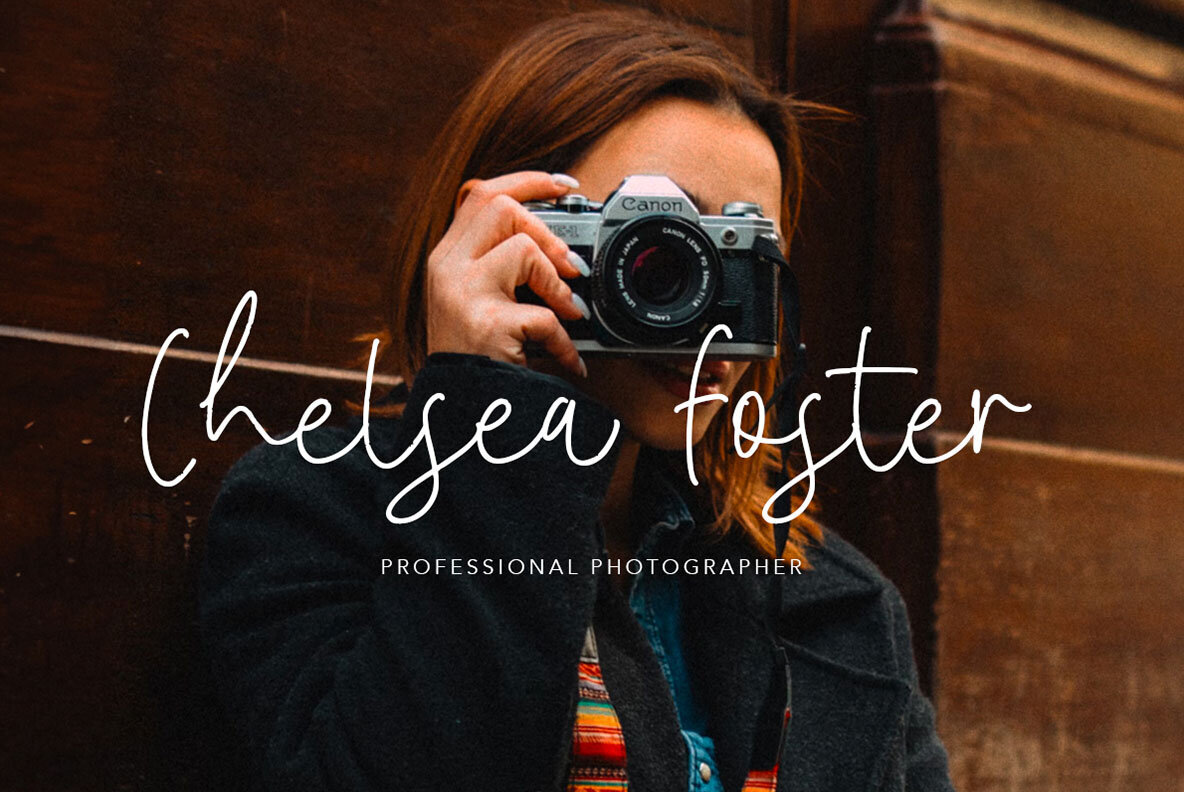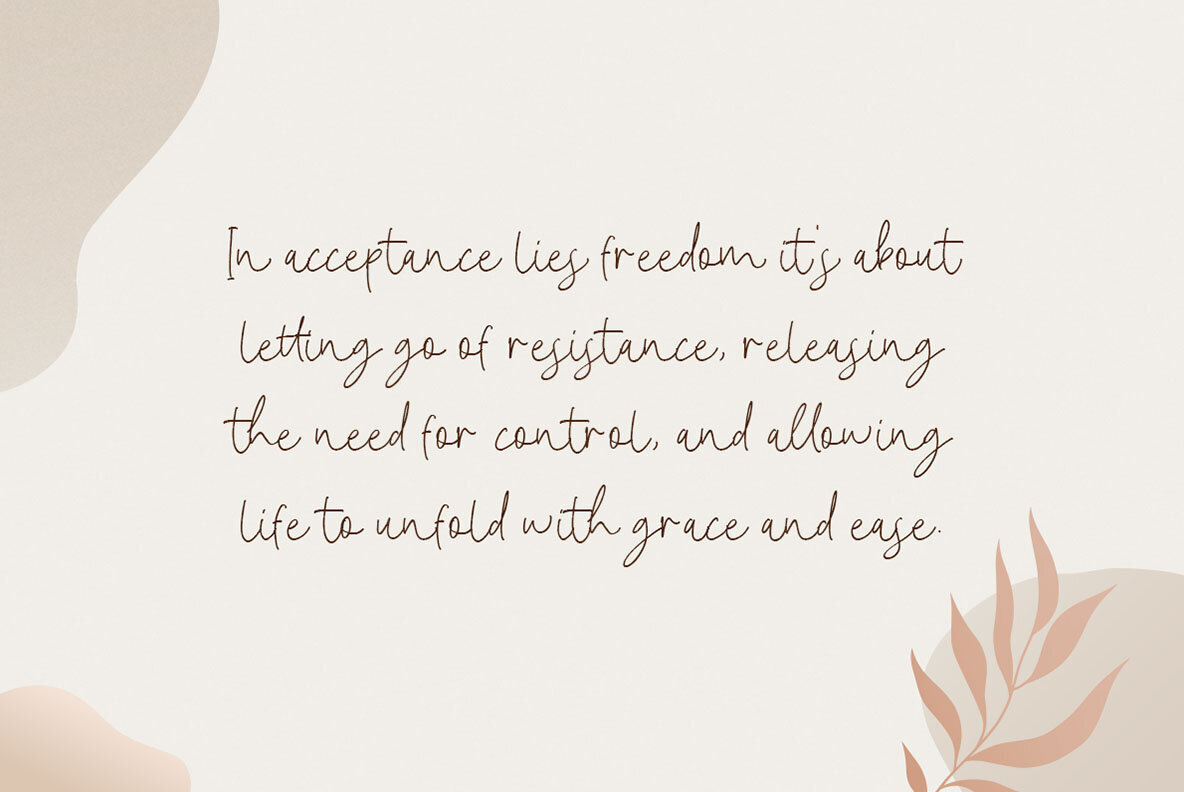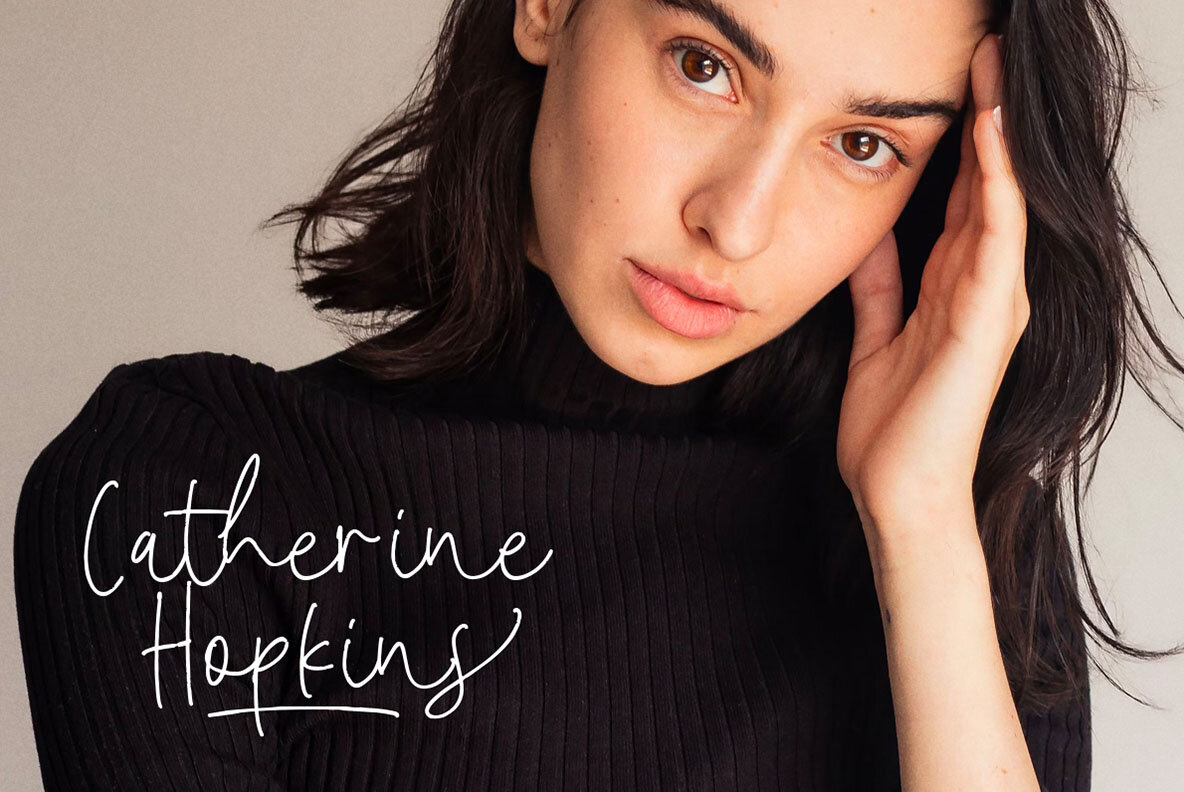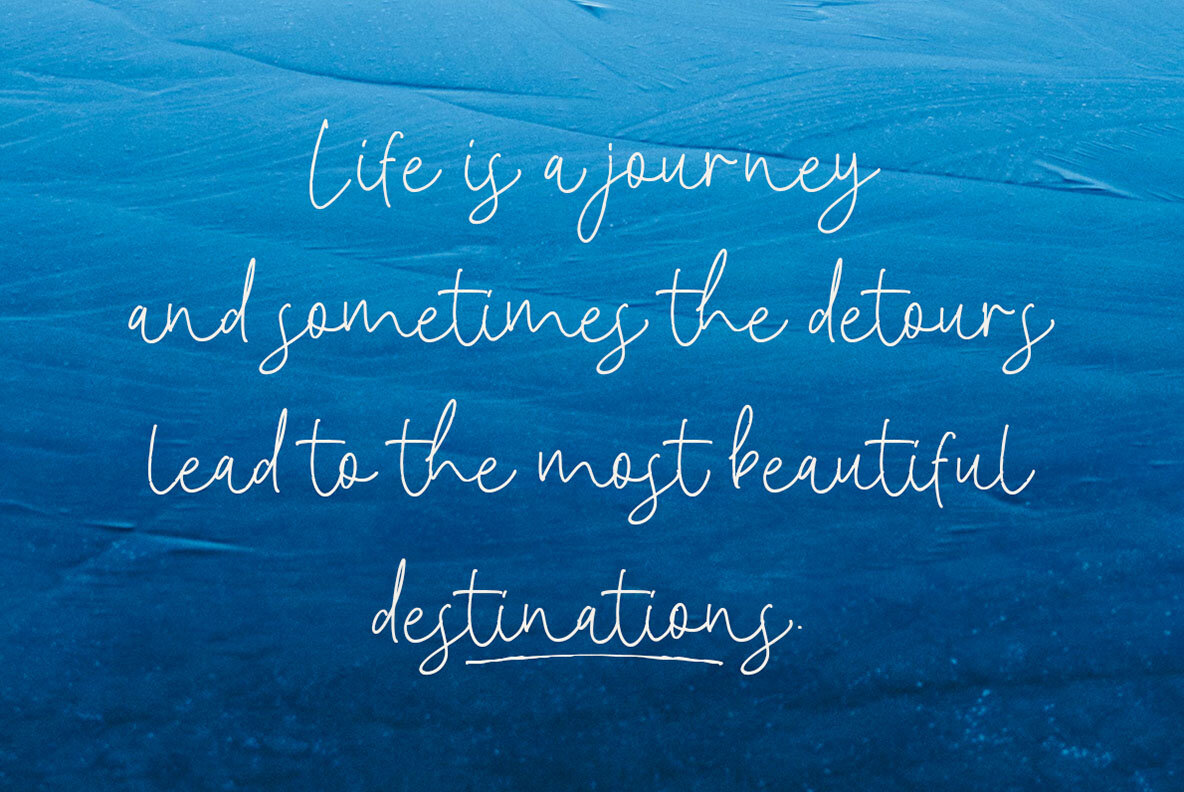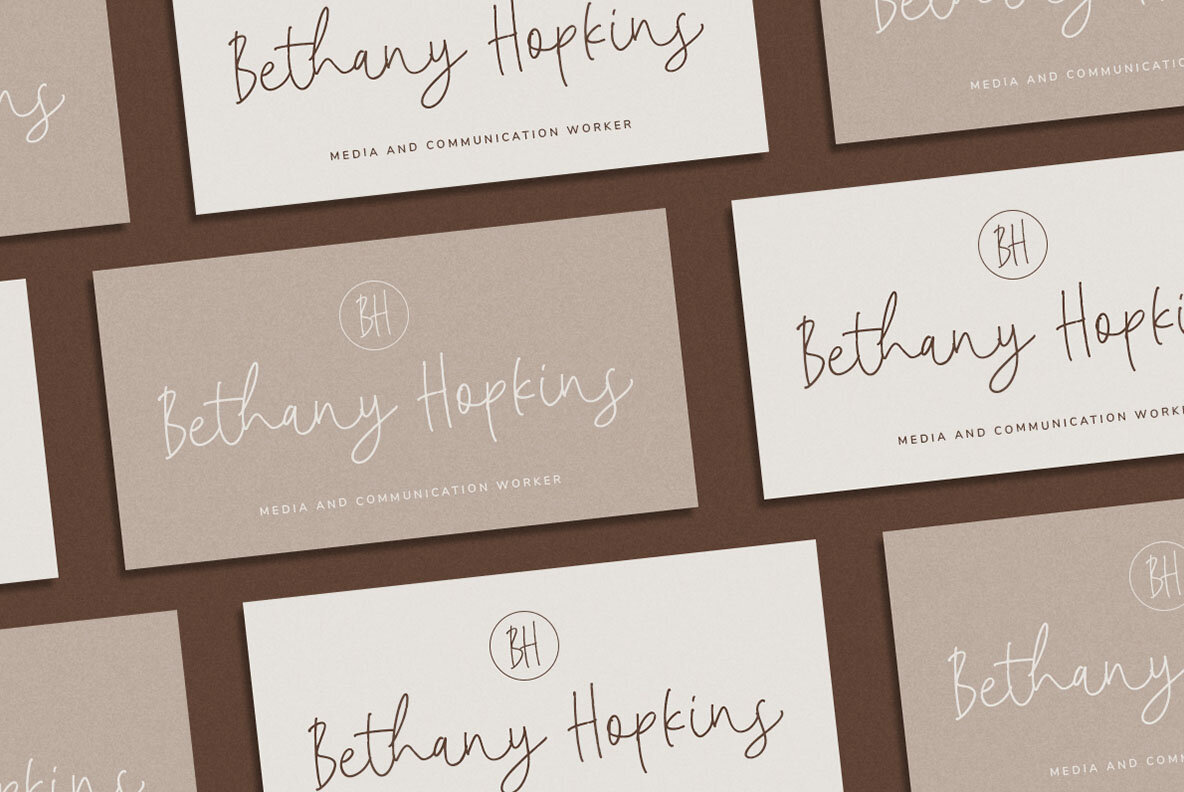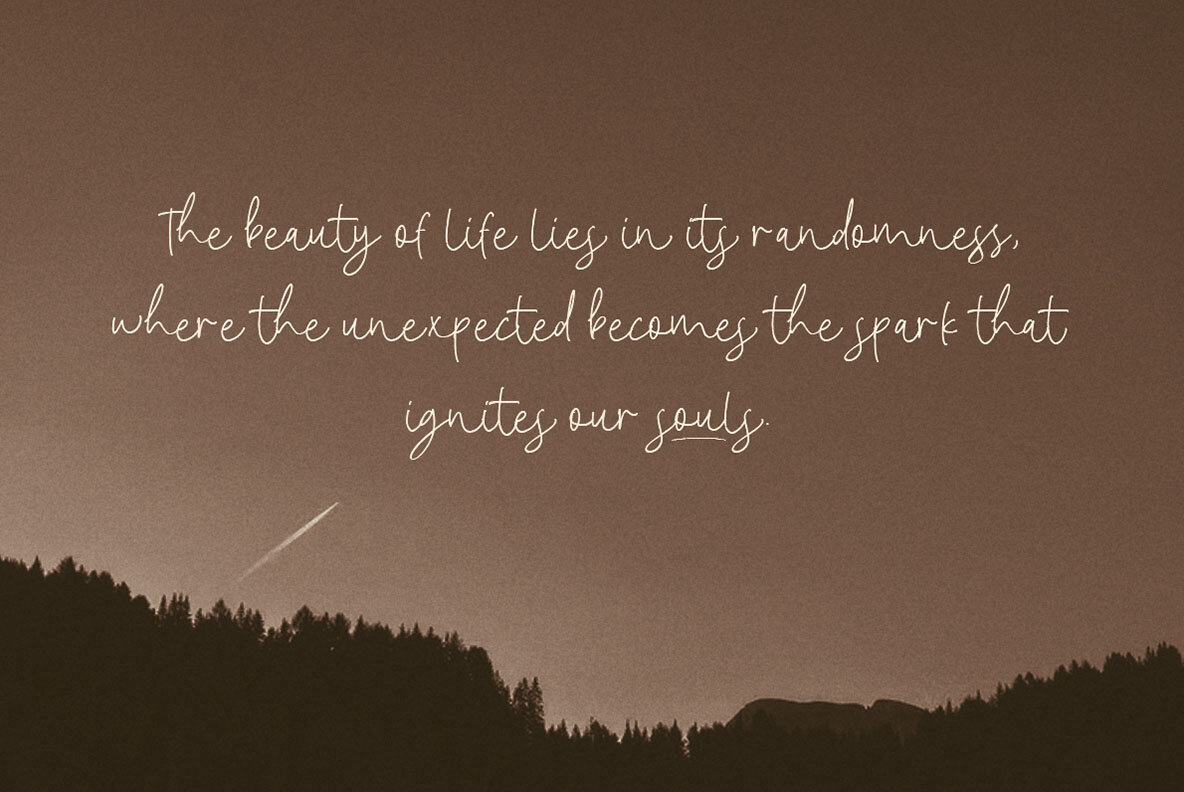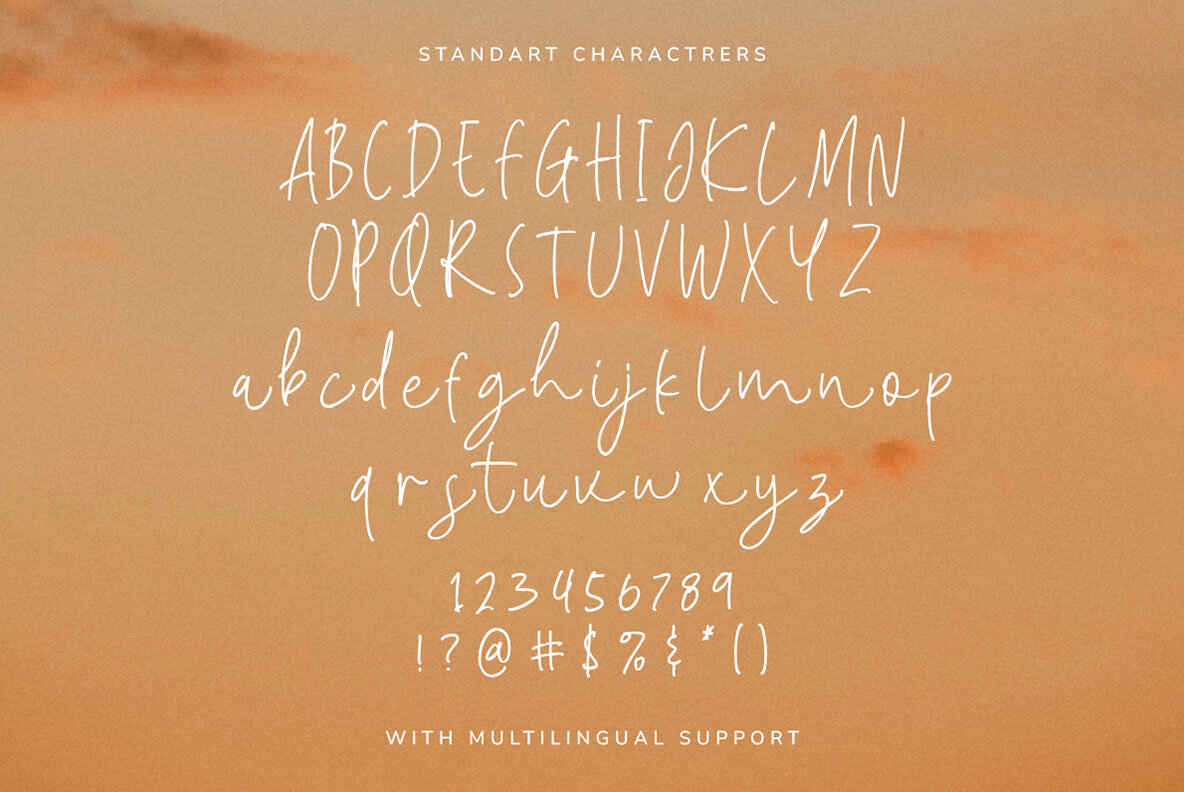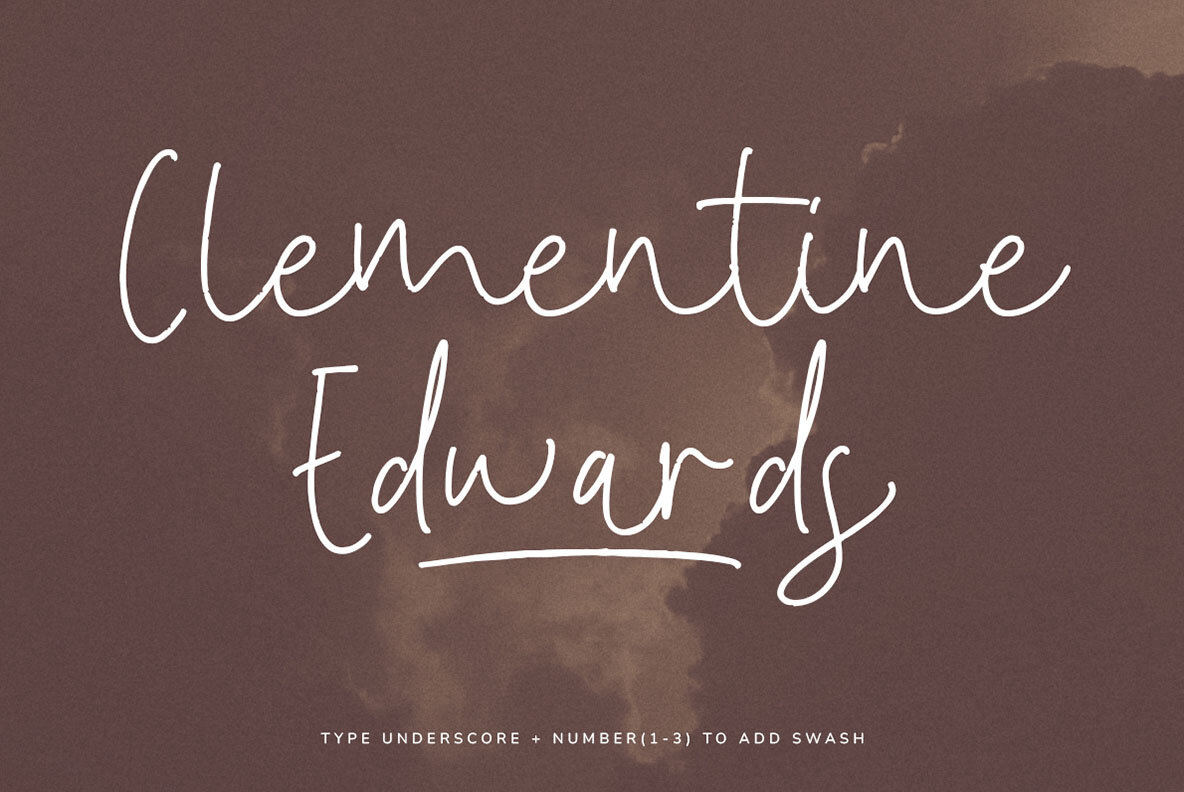
Blind Ambition Font
Blind Ambition Regular
Blind Ambition offers a distinct handwritten script with a natural look and monoline style that is perfect for creating elegant signatures. This versatile font is ideally suited for applications in logos, invitations, labels, magazines, books, greeting cards, wedding cards, packaging, fashion, makeup, stationery, novels, and any advertising purposes. For optimal use of all font features, we recommend programs that support OpenType features and Glyphs panels, such as Adobe applications and Corel Draw, to access the full range of Glyph variations.Blind Ambition: Elegant Handwritten Script